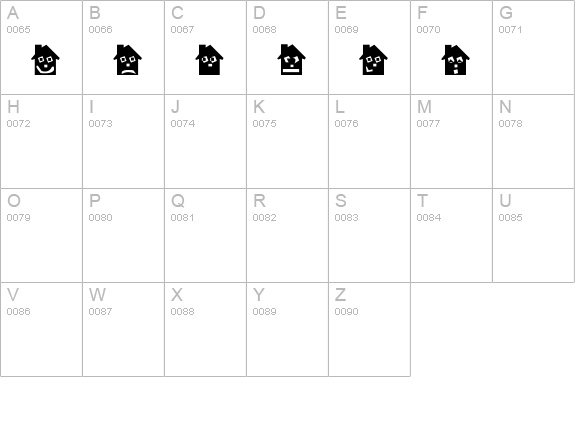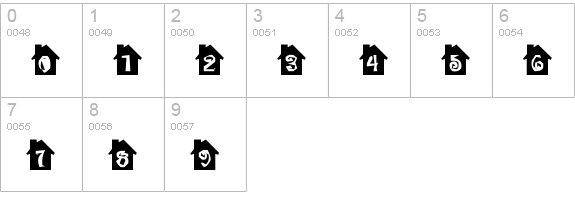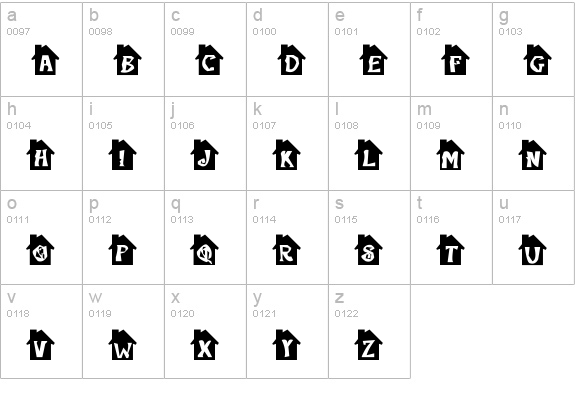
Little House Font Details
Little House font is a charming and whimsical typeface that evokes a sense of nostalgia and warmth. With its playful curves and rustic feel, this font is perfect for adding a touch of quaintness to your designs. Whether you're working on a vintage-inspired project or looking to infuse some cozy vibes into your work, Little House font is sure to delight. What makes Little House font even more appealing is that it is available for free download at FontsMarket.com. This means that you can easily access this delightful font and incorporate it into your creative projects without any cost. Don't miss out on the opportunity to enhance your designs with the delightful charm of Little House font – download it for free today at FontsMarket.com!